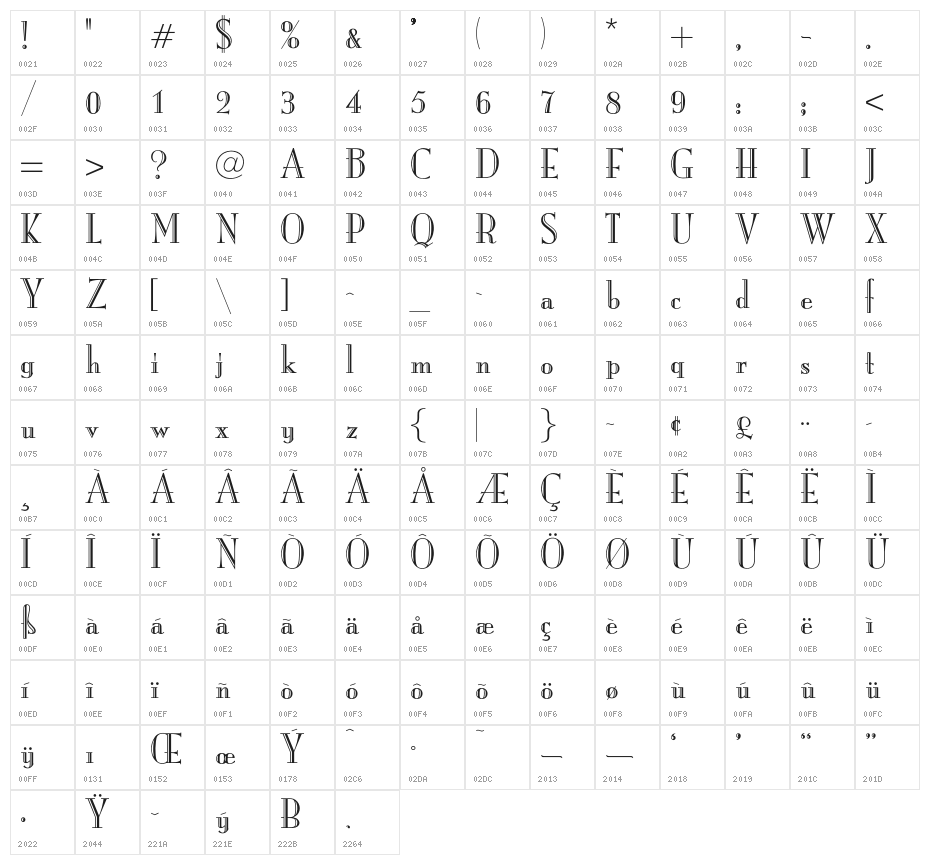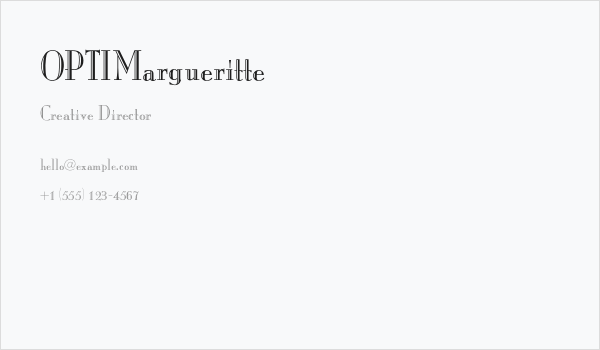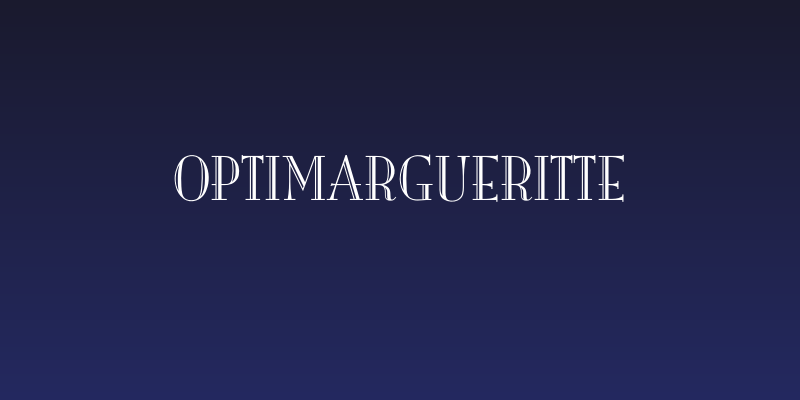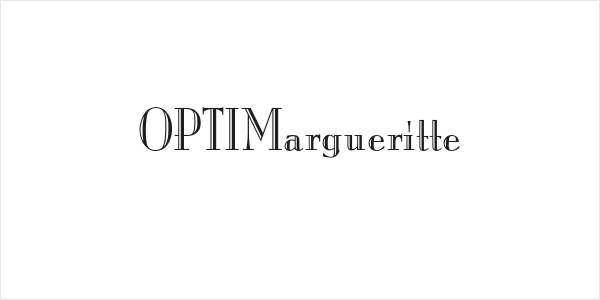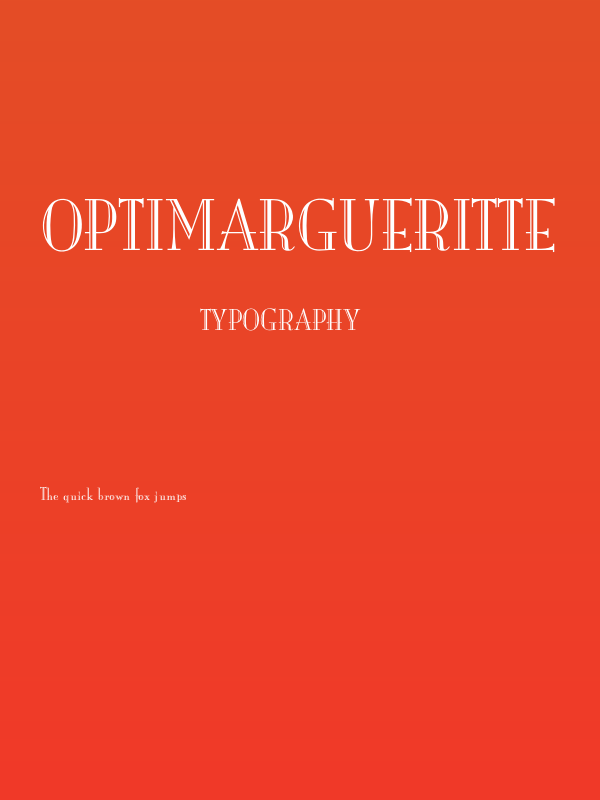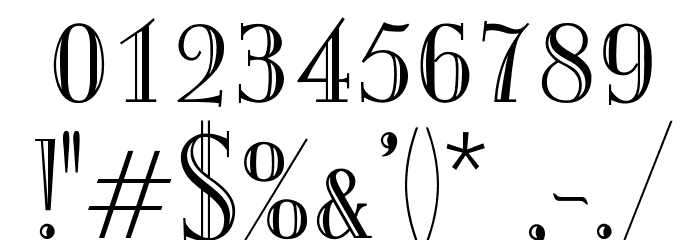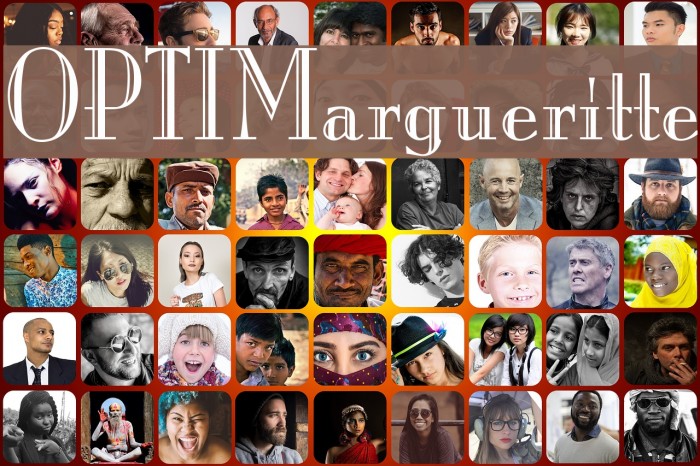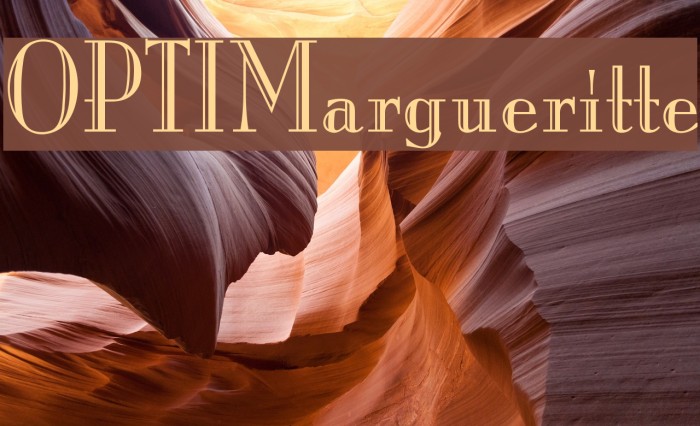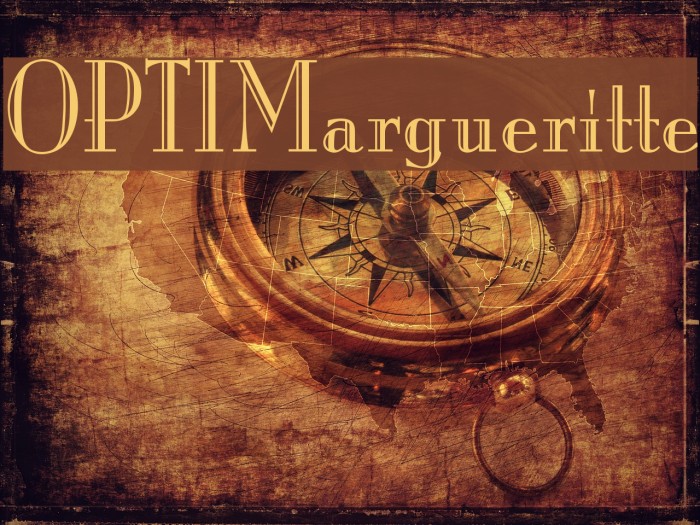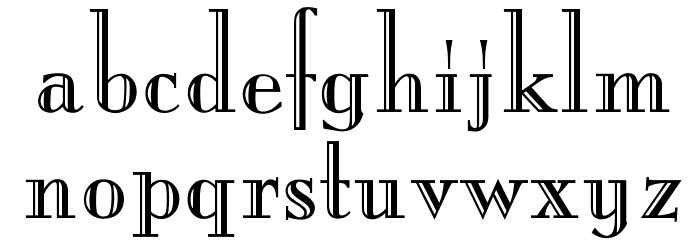
OPTIMargueritte Font
OPTIMargueritte Description
This font features a distinctive and elegant design with high contrast between thick and thin strokes, giving it a sophisticated and artistic appearance. The uppercase letters are tall and slender, with unique decorative elements that add a touch of flair. The lowercase letters maintain a consistent style, complementing the uppercase with their own subtle embellishments. Numbers are clear and easy to read, while special characters are designed with the same attention to detail, ensuring a cohesive look across all elements. This font's intricate style makes it ideal for projects that require a touch of elegance and creativity.
| Proposed Projects | Ideal for wedding invitations, luxury branding, editorial design, and artistic posters. |